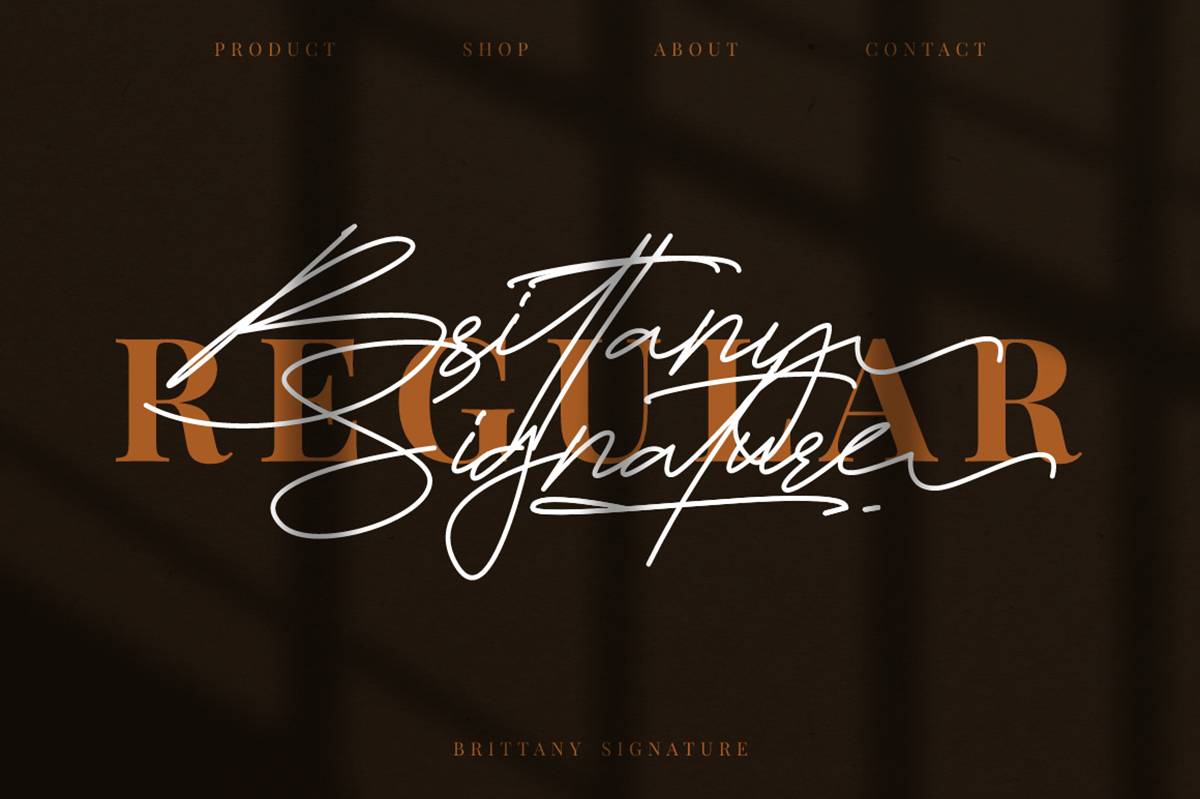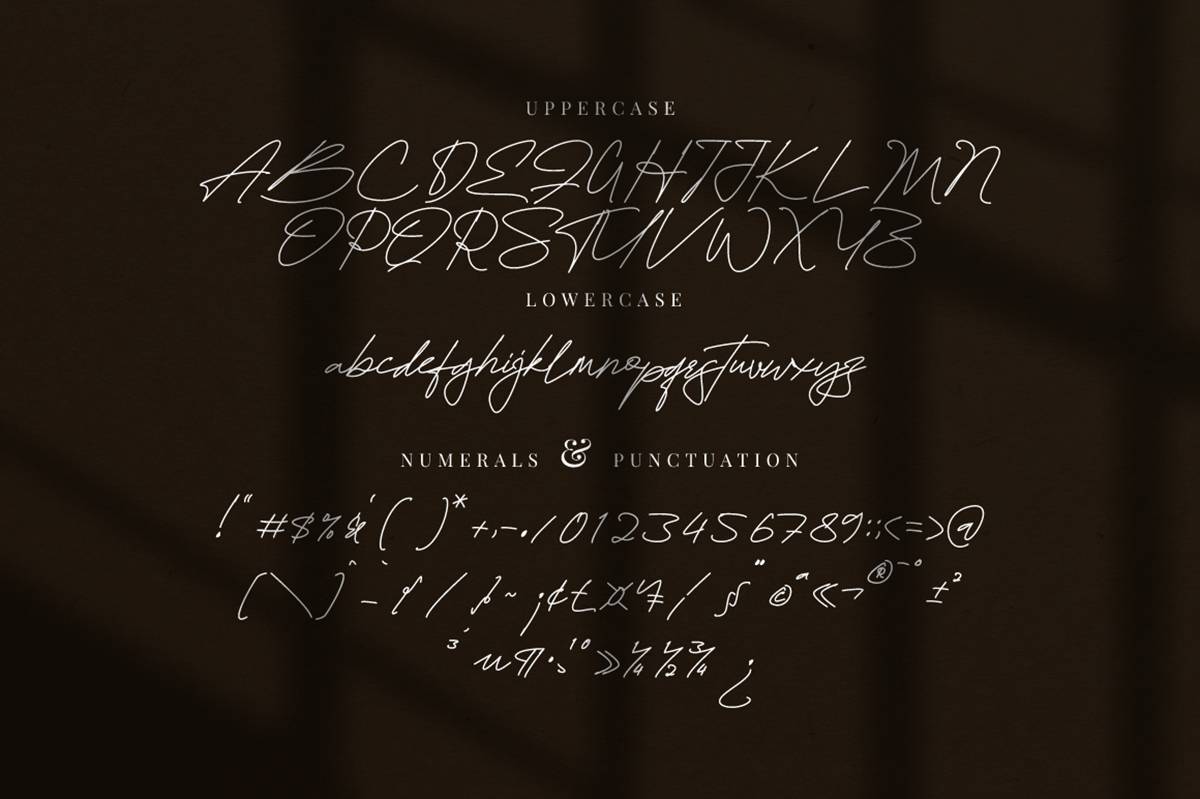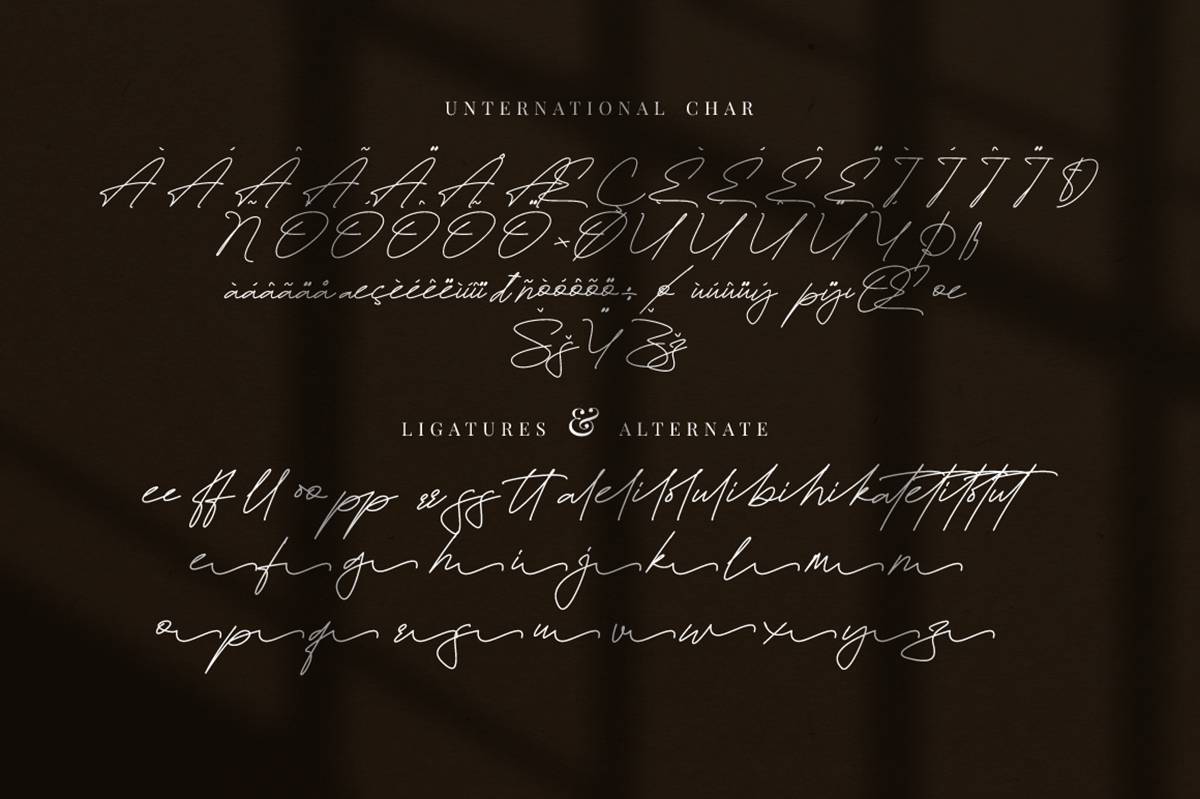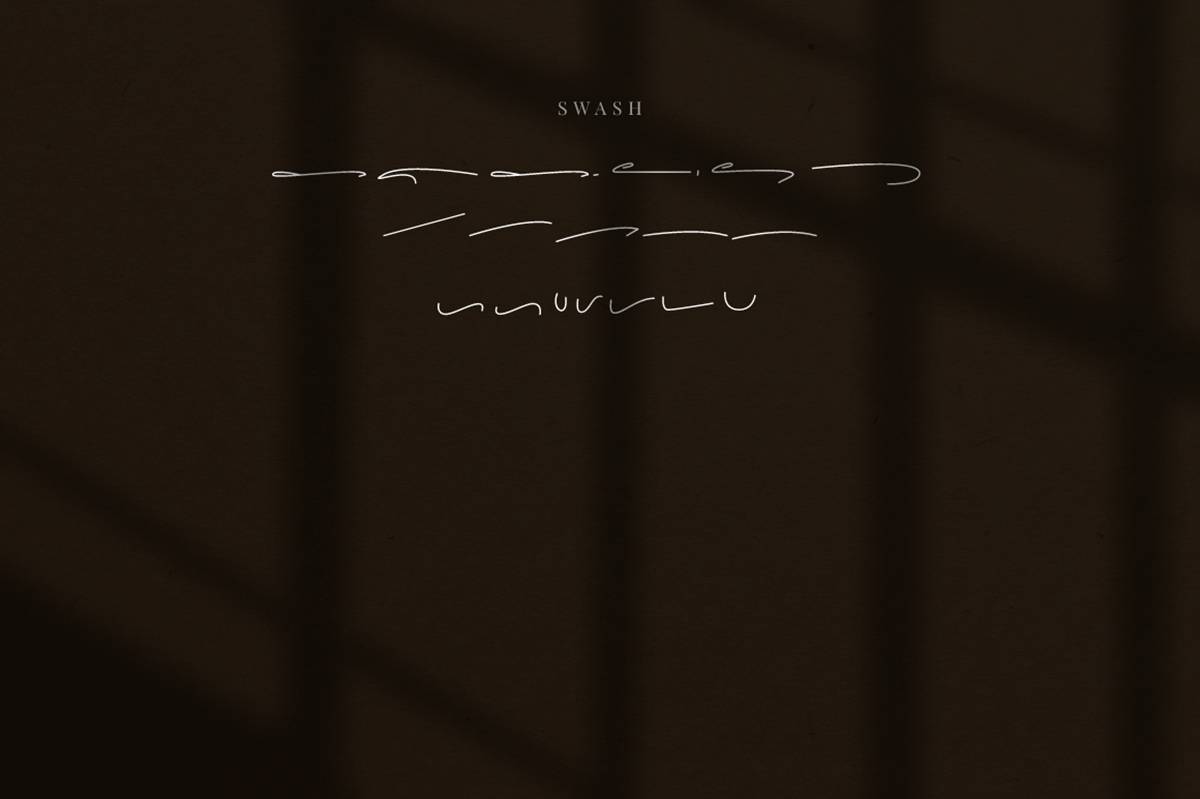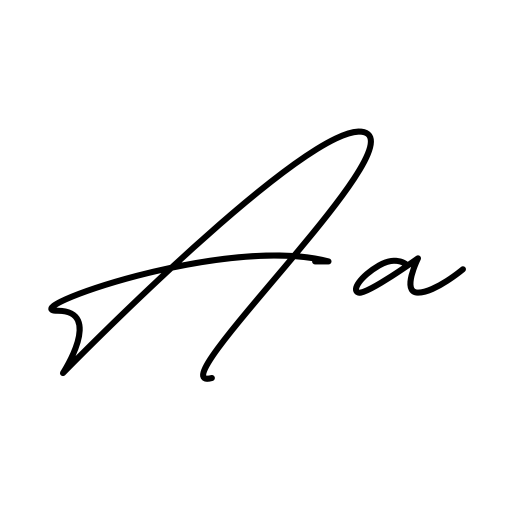
Brittany Signature Font is an elegant, thin script typeface with a delicate, handwritten style that feels personal and sophisticated. Its airy, flowing lines and tall, narrow letterforms make it ideal for luxury branding, wedding invitations, and stylish logos where a refined, intimate touch is desired. This font works best in large sizes for headlines or accents, lending a graceful and modern signature vibe to any design.
Brittany Signature Font
About Brittany Signature Font
| Font family | Brittany Signature Font |
| Designer | FinTypeStudio |